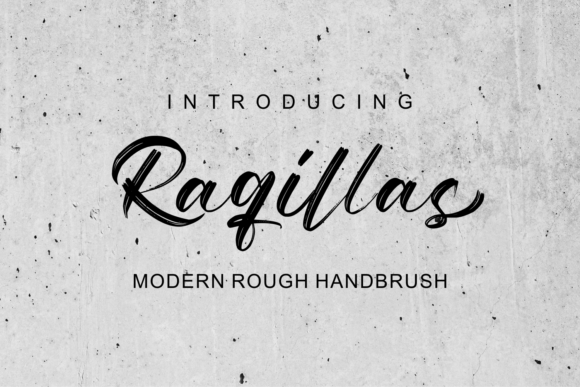
Feast your eyes on Raqillas Font, a modern masterpiece crafted with rough handwritten charm and authentic dry brush imperfections. Immerse yourself in its captivating baseline, dancing with energy and vibrancy.
With Raqillas Font, simplicity meets sophistication, creating a visual symphony that commands attention. Its unassuming nature adds a touch of elegance, making it the perfect choice for a wide array of design projects.
Picture your brand's logo adorned with the Raqillas Font, exuding a timeless appeal that resonates with your audience. Unleash your creativity and let the font's unique personality shine through in handwritten quotes, evoking emotions and leaving a lasting impression.
Envision your products adorned with the Raqillas Font, their packaging transformed into mini works of art. Whether it's headers, posters, or apparel, Raqillas Font seamlessly blends with your design vision, adding a touch of artisanal charm.
Step into the world of social media and let Raqillas Font amplify your brand's presence. Its distinct character adds depth and personality to your posts, stories, and graphics, captivating your followers and leaving them craving more.
For those special occasions, Raqillas Font lends its grace to greeting cards, imbuing them with a heartfelt touch that conveys your warmest sentiments. Let the font carry your messages of love, appreciation, and joy, leaving an indelible mark on the recipient's heart.